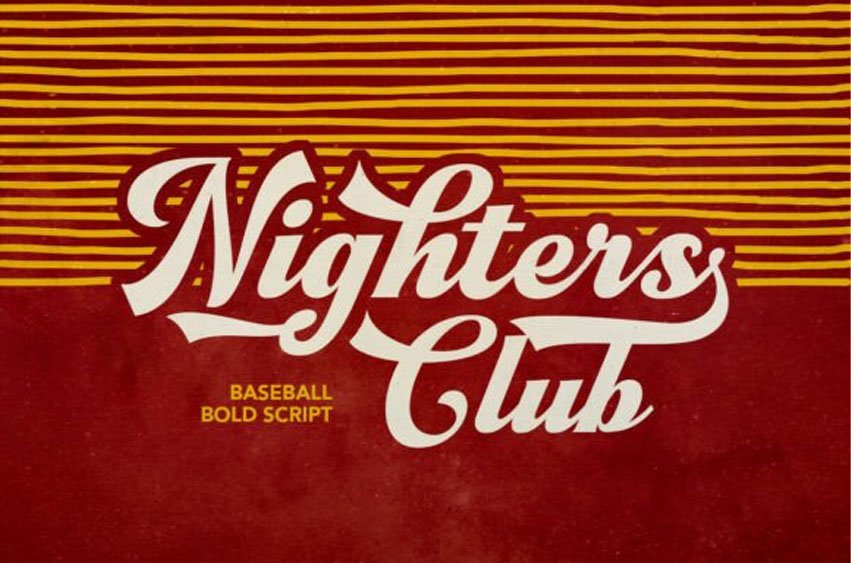
Nighters Club Font Step up to the plate with Nighters Club, a powerhouse display script that captures a “classic-and-competitive” soul. This typeface features massive, high-contrast cursive letterforms uniquely characterized by rhythmic, hand-drawn “tails” and sweeping swashes that bridge the gap between vintage 1950s varsity jerseys and modern artisanal brewery branding.
With its heavy structural weight and nostalgic personality, Nighters Club is the premier choice for independent sports team logos, vintage-themed apparel, clubhouse signage, and high-impact “sturdy-and-spirited” social media headers.